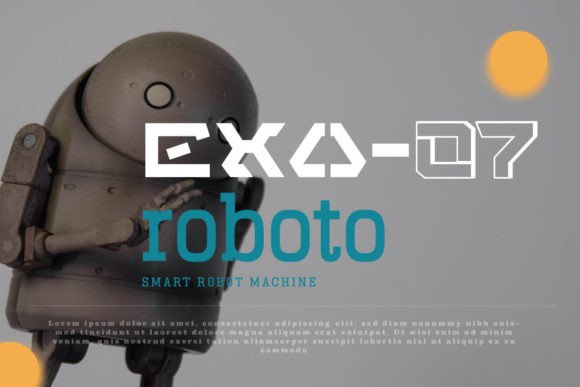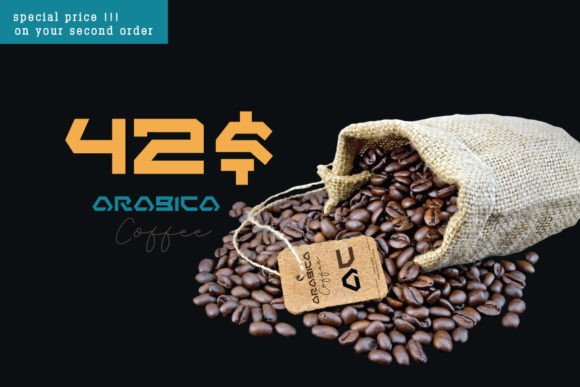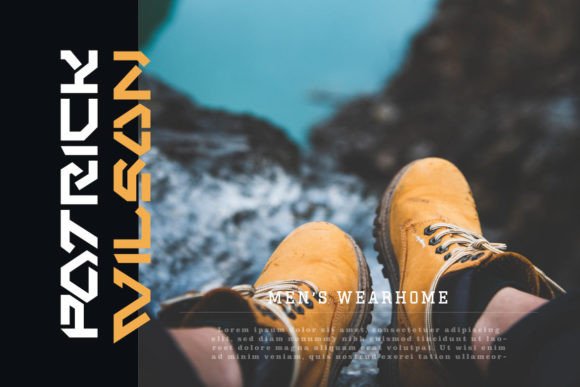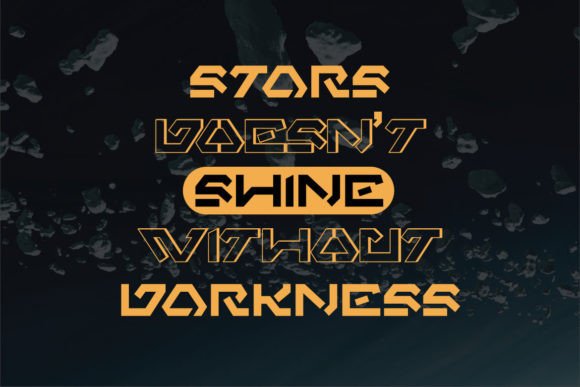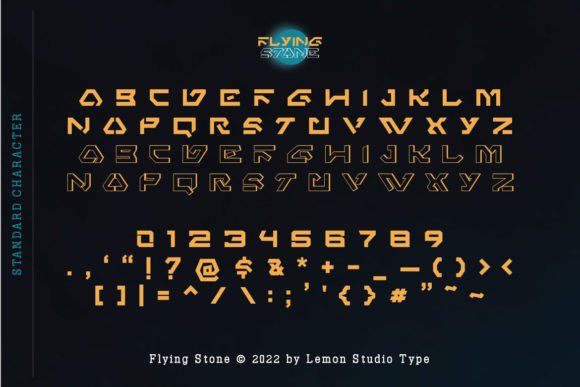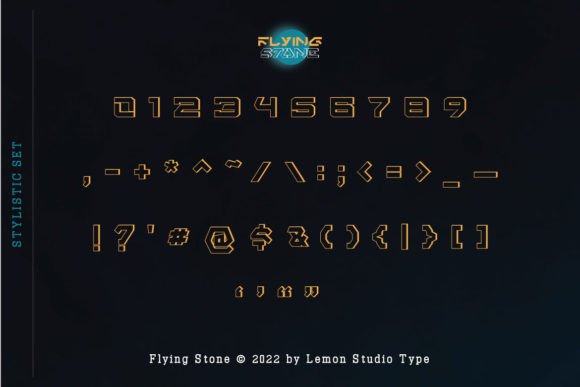
Introduction to Flying Stone Font
Flying Stone is a modern futuristic display font with a bold and techno feel.
It will add a contemporary update to any design project Use this font for your headings, mockup, branding, gaming logo, and many more.
Key Features of Flying Stone Font